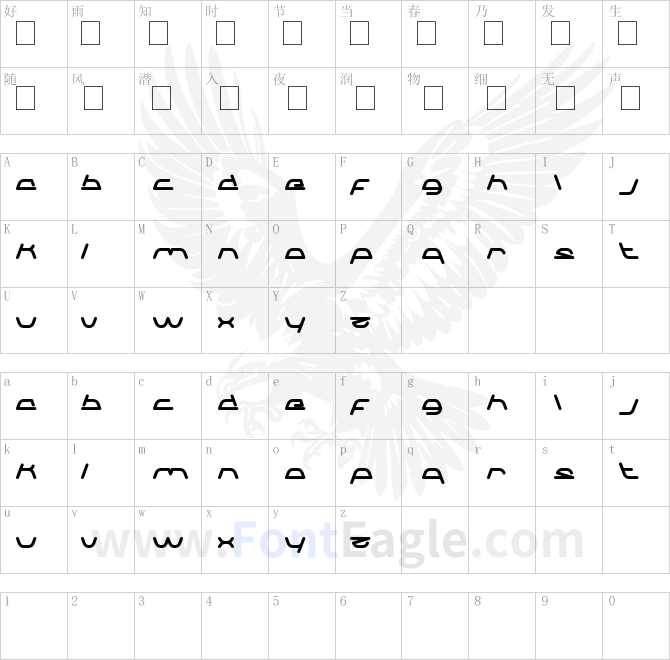
sneak-peeks is a great font, widely used in graphic design, single-page menu design, poster design and other fields, and is deeply loved by designers.sneak-peeks download.